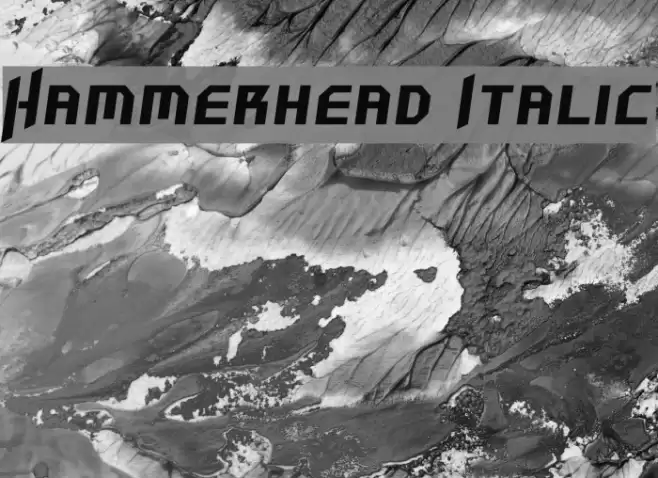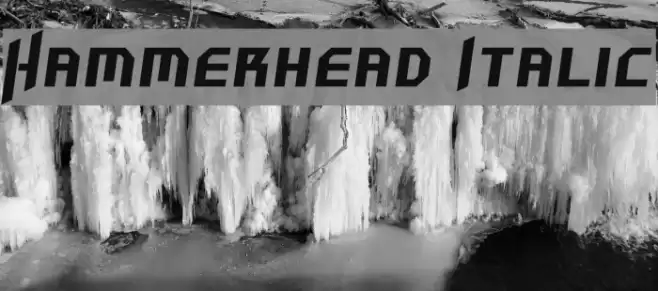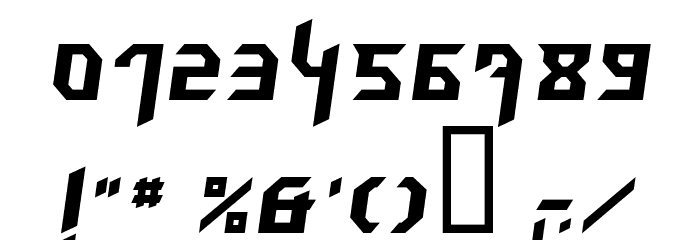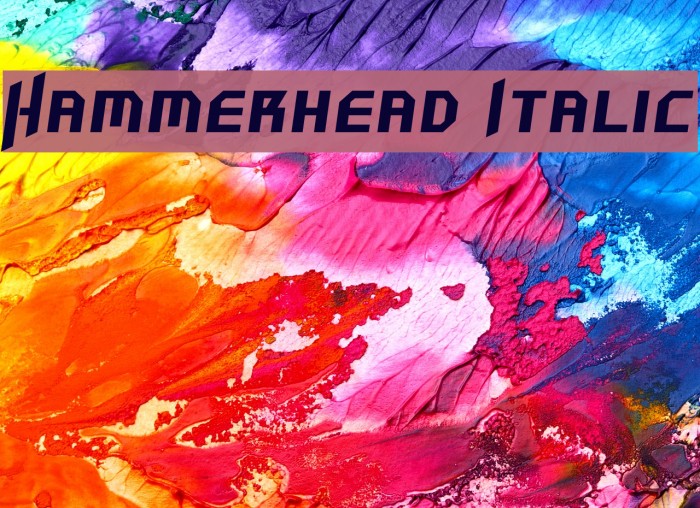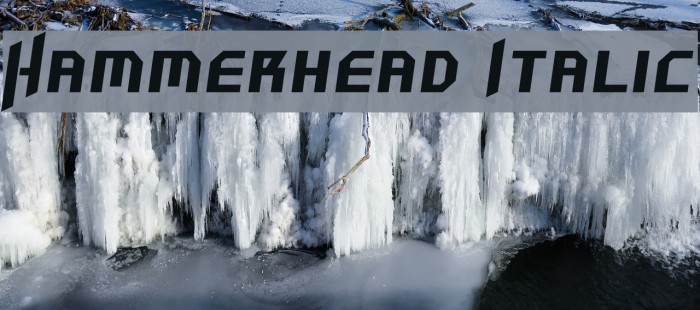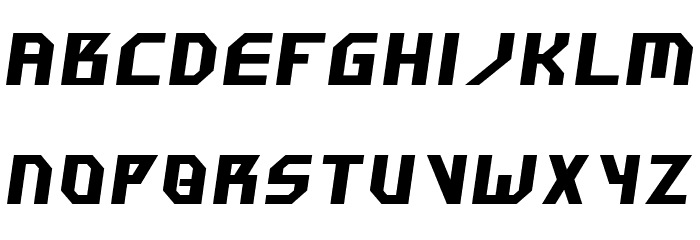
Hammerhead Italic Font
Hammerhead Italic Description
This font features a bold and angular design, characterized by sharp edges and a futuristic aesthetic. The letters are slanted, giving it an italicized appearance, which adds a dynamic and energetic feel. The uppercase and lowercase letters maintain a consistent style, with a geometric structure that emphasizes straight lines and pointed corners. The numbers and special characters follow the same design principles, ensuring uniformity across all glyphs. This font's unique style makes it stand out, suitable for projects that require a modern and edgy look.
A bold, angular, and italicized font with a futuristic and dynamic style from Futuristic fonts.
- Proposed Projects: Ideal for sci-fi themed designs, video game titles, sports branding, and modern posters.